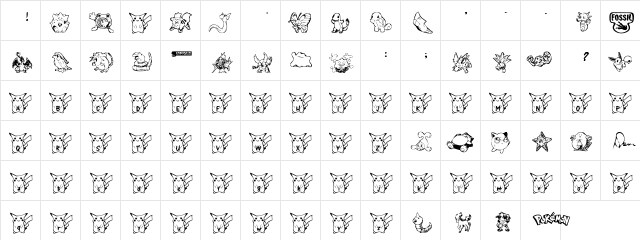
Pika Pika Regular Free Font
Pika Pika Regular
Design Context for Pika Pika
Pika Pika is a composed and adaptable typeface that performs quietly and consistently across a wide range of design contexts.